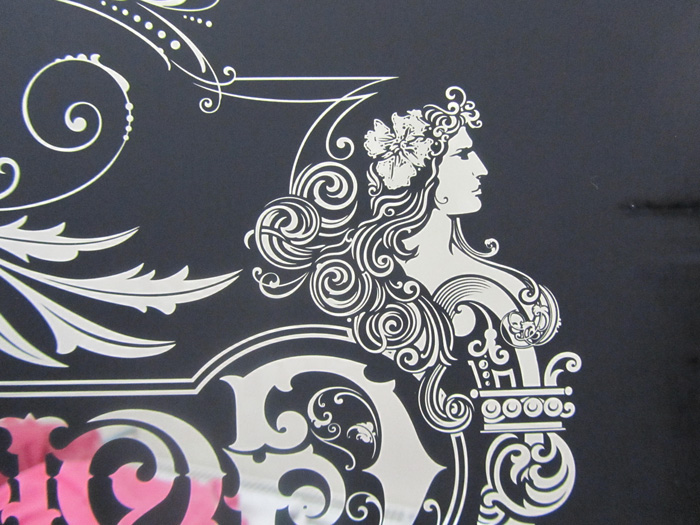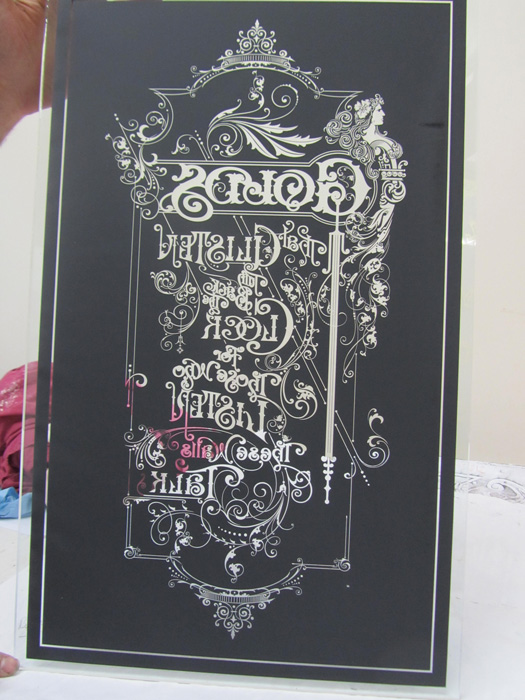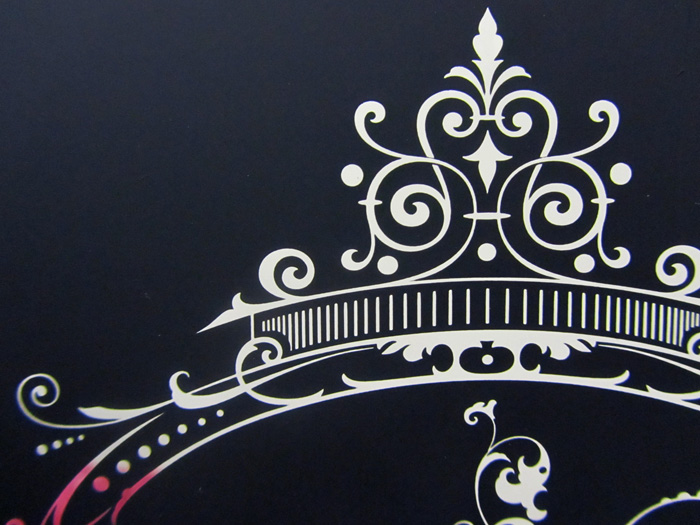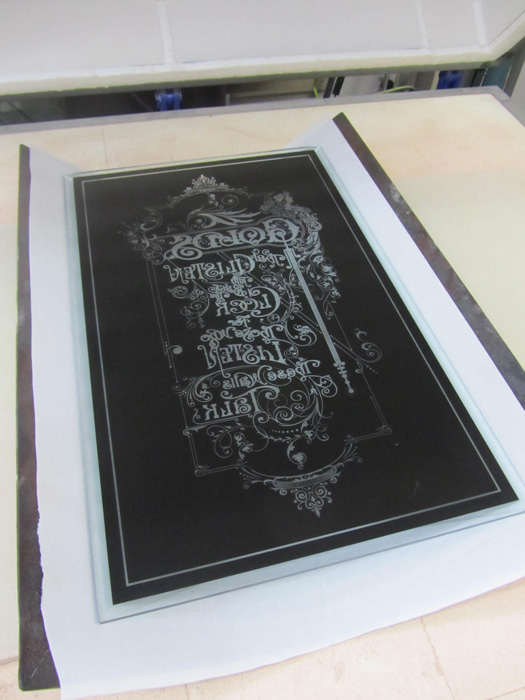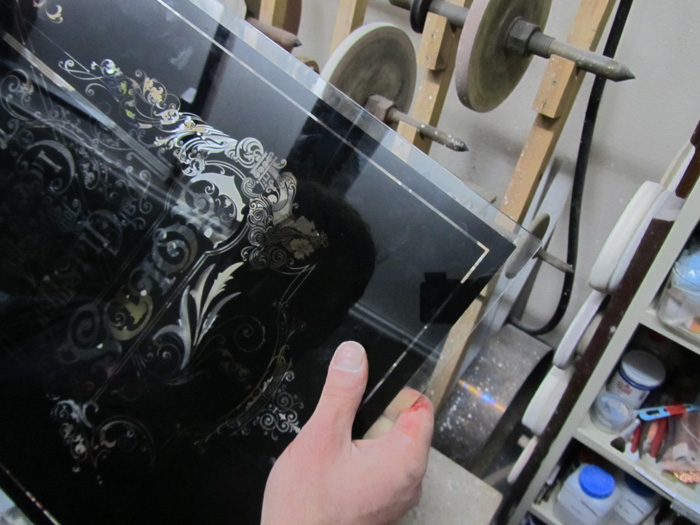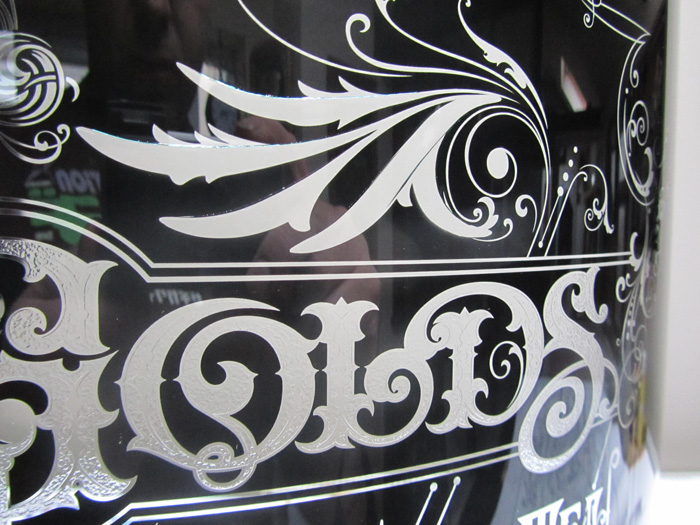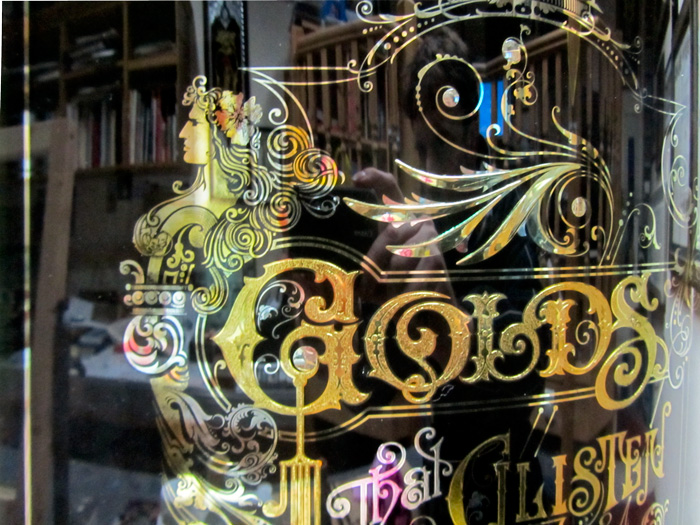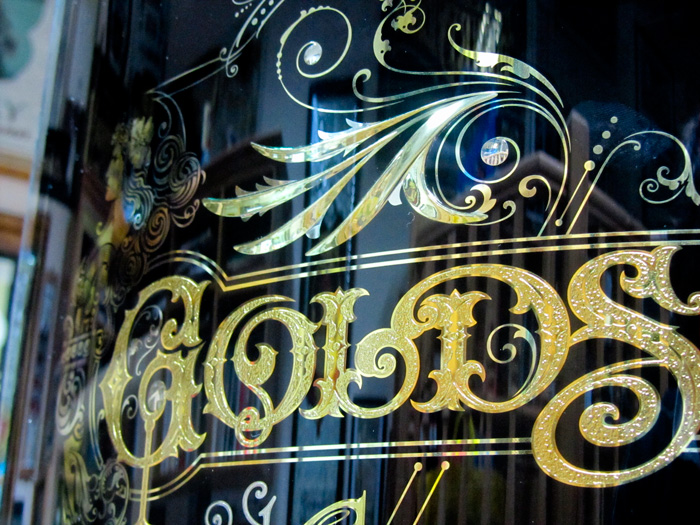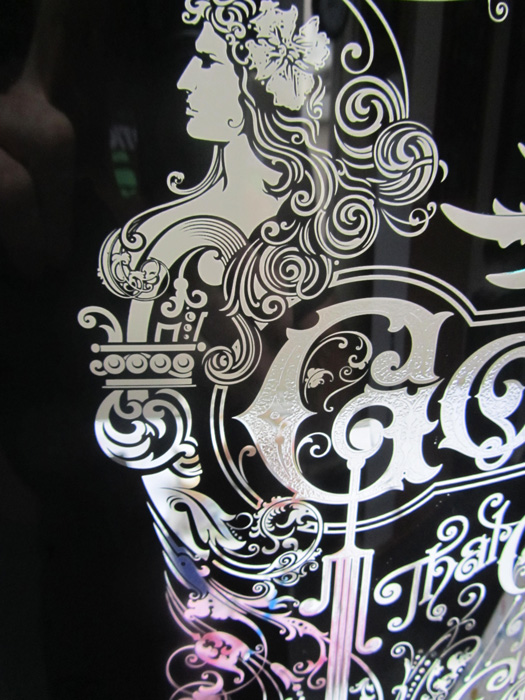
Golds That Glisten
I made this design about a year ago and only lately decided to actually try and have a go at making it. I have used this paint before but only through masking materials ,this time I had it made thicker with a higher content of black pigment almost like treacle, anyway I designed it by hand using a pencil and paper, got a little carried away with scrolls and embelishments and one little part of the text I wished now I would of done slightly differently for legibility reasons. made the mistake of to thicker outline on some of the smaller text but viewing it here is probably harder to read than in person ..I guess it's art anyway....The wording ....GOLDS that GLISTEN Turn Back The CLOCK For Those Who LISTEN These Walls TALK ... I seen this text on a small glass sign that Dave and Susie Butler had given to Roger Graham at one of the Conclaves in around 1990 for Rogers Palace Saloon in Orange County . I asked Dave if I could use the wording on a panel of my own and he said yep go right ahead and get it done, so thanks to the Butlers for the wording on this panel. The paint was screened directly to the glass in one pass and then fired to 590 dgrs and held there for 18 minutes with a gradual cool back to room temprature of 15 hours,when it dried prior to firing it was almost like powdered charcoal sitting on the glass but with very sharp detail..I then Brilliant cut punties and edge cuts in the panel and because the paint had been kiln fired into the glass it was like working with flashed glass. Imagine the acid effects on this paint that could be done almost endless effects I would think..
Polishing was done as normal and then I masked out the text for acid embossing, fine and medium acid letters were added and then finally I bent the panel into a curve at 620 dgrs with a slower decrease in temprature to avoid breakage.
I am now slowly in between other work but should have this panel gilded and wer eglomise done in a few days and hopefully towards the finishing line....
Dave[/attachment] brilliant cutting the glass through the black fired paint curved glass and acid etched
Re: Golds That Glisten
Imagine that! ...a grown man drawing all those scolls!
Probably sung a little song as he drew it.
CRIKEY! Your poor ole father, God Almighty!
I don't know if you've been told this before,
but it seems both your oars are on the same side of the boat!
BRILLIANT!!
Re: Golds That Glisten
Here the top section is gilded in various crts of Gold Leaf.The girl has been scratched and shaded and backed with black paint but you can't see it close in these shots. Spent about 3 hours adding the detail in her face and scrolls
will get some better shots hopefully once finished...
Re: Golds That Glisten
The power of design and eye for excecution.
Is that the paint of last year?
Super!
Re: Golds That Glisten
......and we just keep seeing the very best this world has to offer !! Thank all of you , and especially you Dave, for this wonderful ride.
Re: Golds That Glisten
That's a really magnificent piece. I really like the embellished letters, they stand out beautifully on that bent glass.
I see a little hint of red color in the crease of your index finger holding the glass against the wheel. Is that from a marker or are you suffering for your art? lol
Keep up the brilliant work
Re: Golds That Glisten
That must be Dave trying to catch an infection through his finger.Patrick Mackle wrote:I see a little hint of red color in the crease of your index finger holding the glass against the wheel. Is that from a marker or are you suffering for your art? lol
Keep up the brilliant work.
Re: Golds That Glisten
The paint is simalar Erik but was made thicker for a better one off print .Pat that is a cut on my hand ,I'm always doing that ,need to be a bit more careful.
The lettering in this picture is about 1 and half inches which gives you an idea of size to the rest of the detail. Thanks for your comments.
Re: Golds That Glisten
That is Unbelievable .